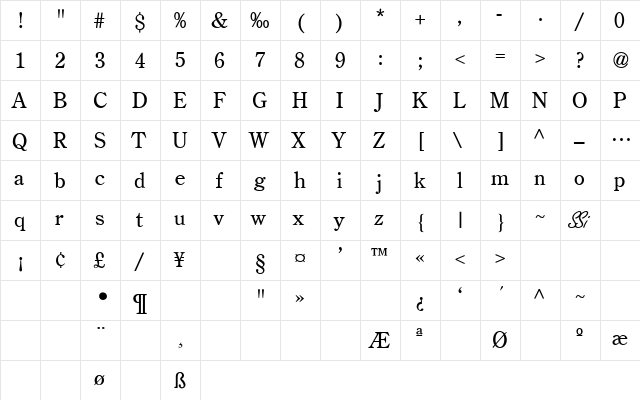
Century Retrospective Light SSi Light Font Preview
Design Context for Century Retrospective Light SSi Typeface
Century Retrospective Light SSi wears its vintage influences proudly, with letterforms that recall mid-century signage, classic packaging, and nostalgia-driven design. The delicate stroke weight brings airiness and refinement to layouts.
Font Pairing: Combine Century Retrospective Light SSi with a simple slab or neutral sans — period-accurate companions reinforce the vintage feel without competing for attention.
Pro Tip: Lean into Century Retrospective Light SSi's period character by pairing it with aged paper textures, muted colour palettes, and vintage illustration styles.